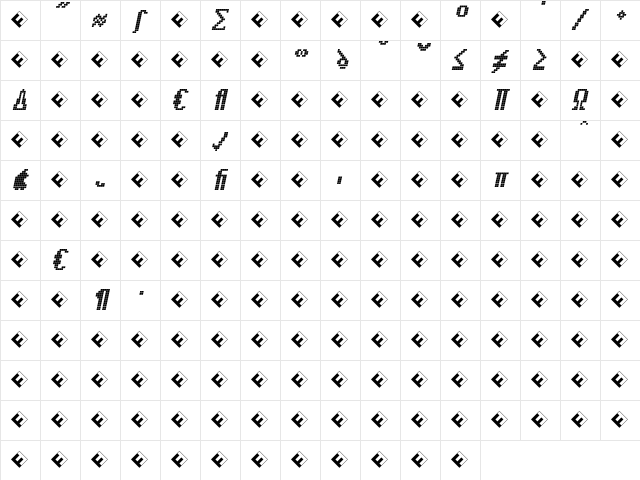
CallFiveL-ItalicExp Regular
Design Context for CallFiveL-ItalicExp Typeface
CallFiveL-ItalicExp offers clean, dependable letterforms without strong stylistic allegiance, making it a practical choice for designers who need flexibility. The slanted form adds forward momentum and visual energy.
Pro Tip: Try CallFiveL-ItalicExp for annotation and caption copy alongside an upright companion — the contrast in angle creates a dynamic but ordered typographic system.